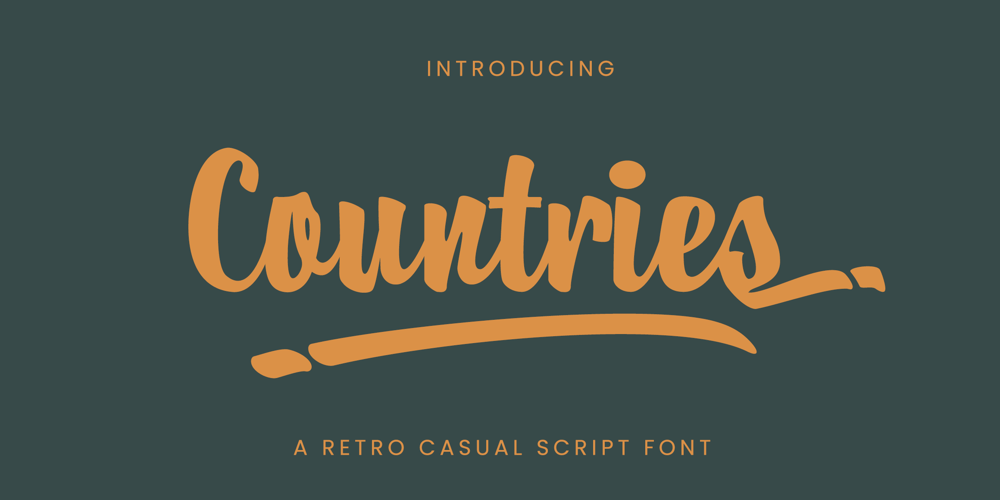
Countries
Countries font
Countries Font Family was designed by Sarwo Edhi Prayitno and published by Enbe Studio. Countries contains 1 styles and family package options. Countries is a bold, eye-catching script font designed to bring dynamic style to any project. Perfect for logos, signage, invitations, social media posts, and more, this font offers the versatility and elegance you need.Whether you’re working in Adobe Photoshop, Illustrator, CorelDraw, Canva, Procreate, Silhouette Design, Cricut Design, or any other design software, Countries seamlessly integrates into your workflow.This font comes complete with alternate characters and ligatures, allowing for even more customization and enhancing the fluidity of your design. With a variety of unique glyphs and smooth connections, Countries ensures your text stands out with a professional, polished look.Additionally, it supports multiple languages, making it an ideal choice for international projects. From bold statements to delicate accents, Countries is the perfect script font to elevate any creative venture.Happy Designing!Enbe